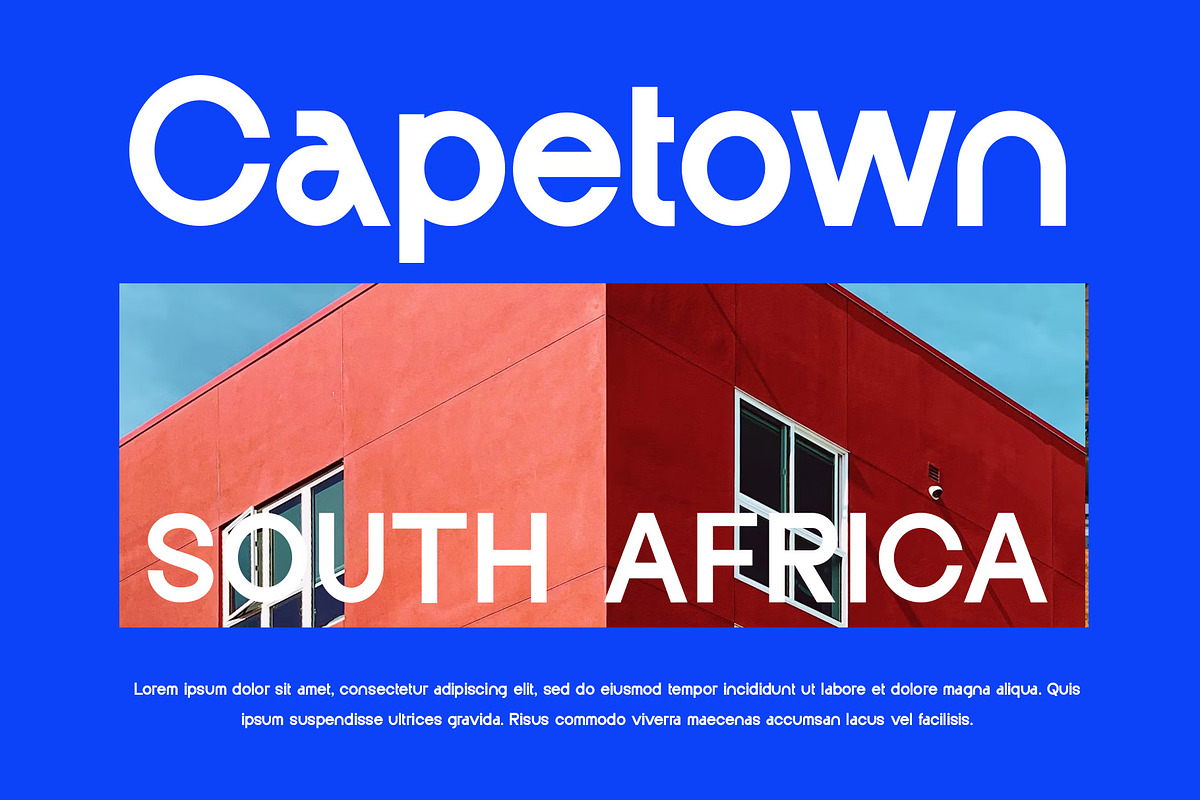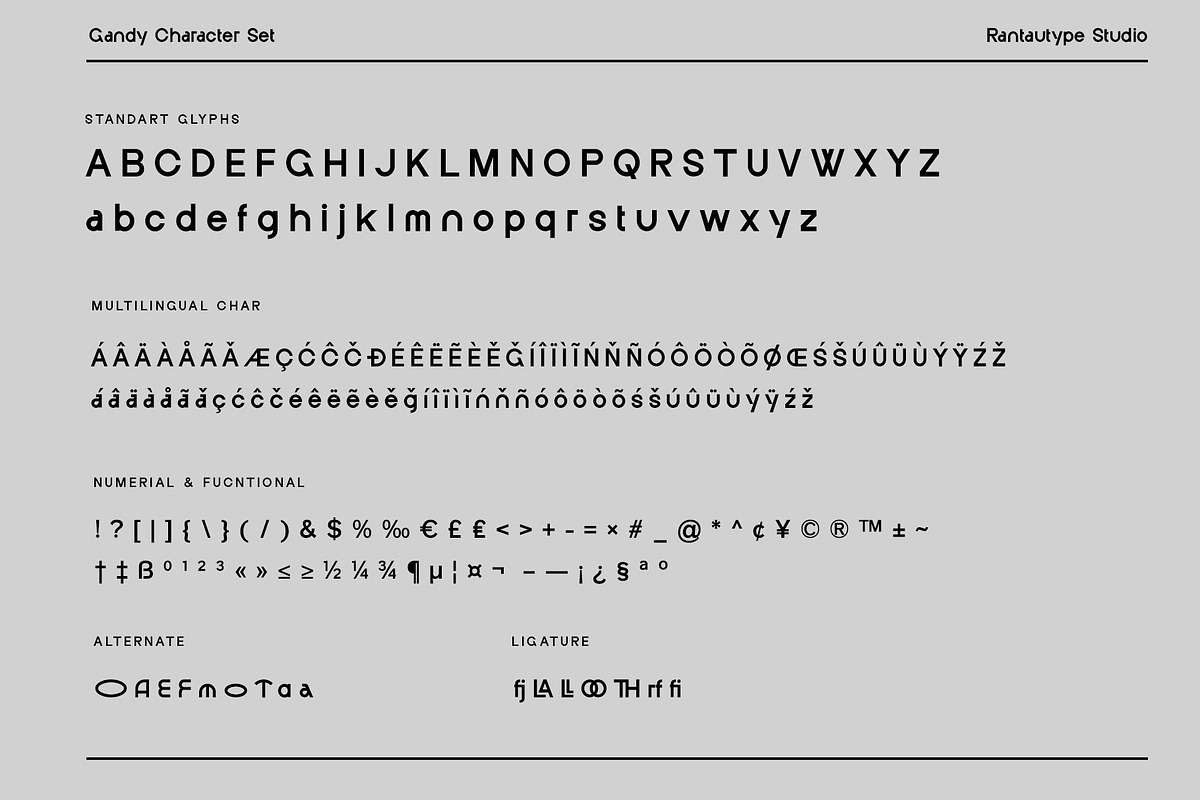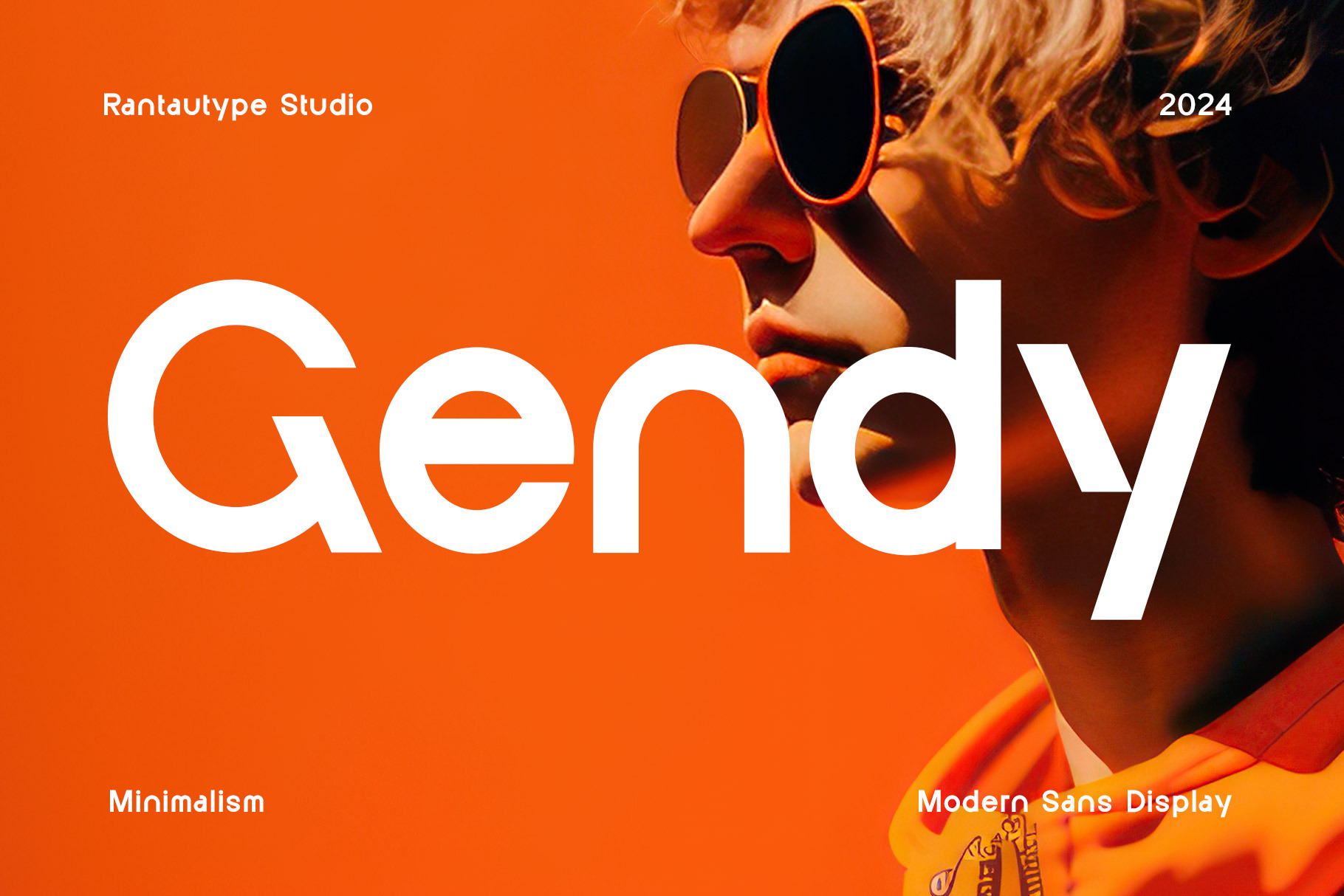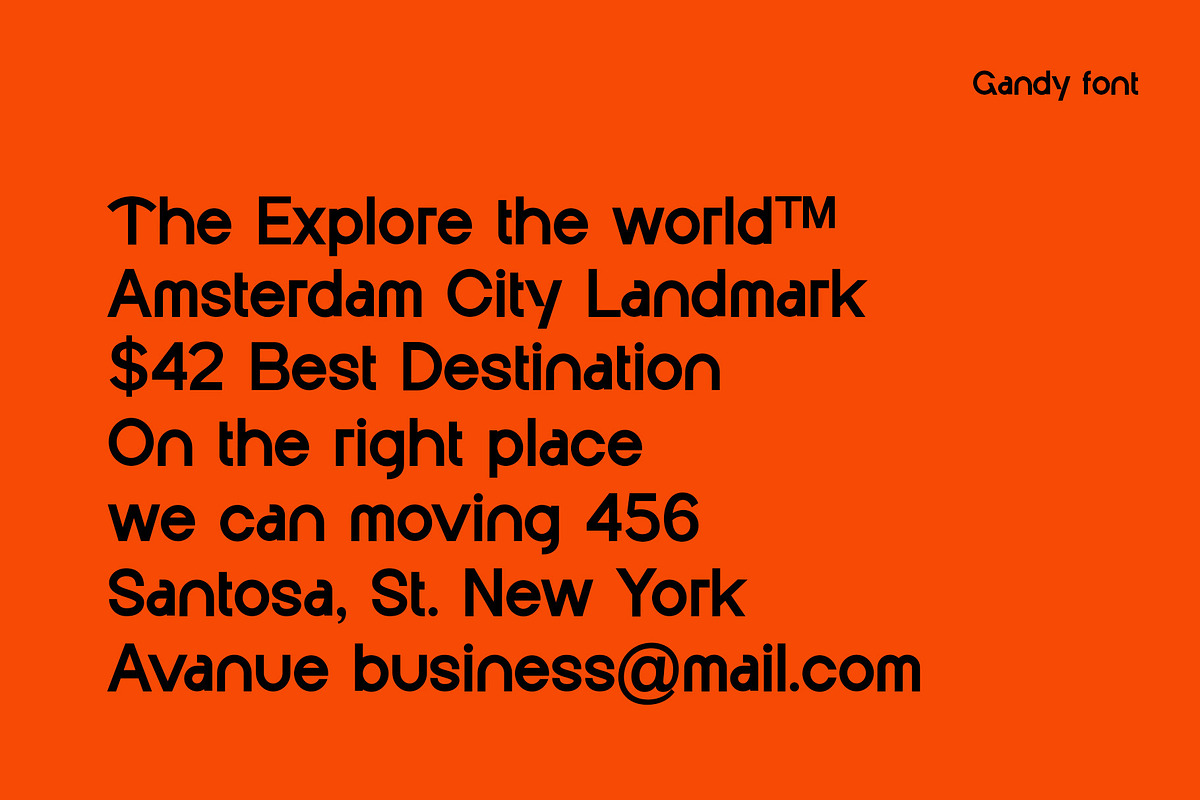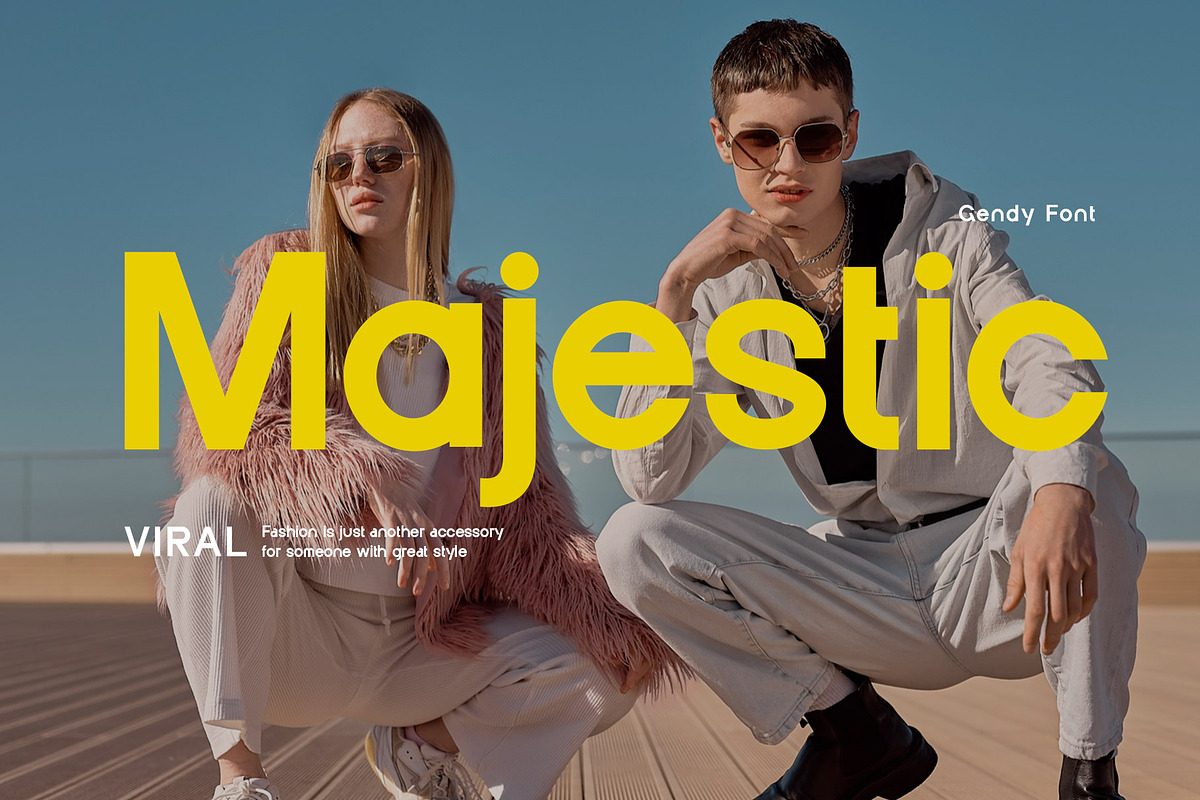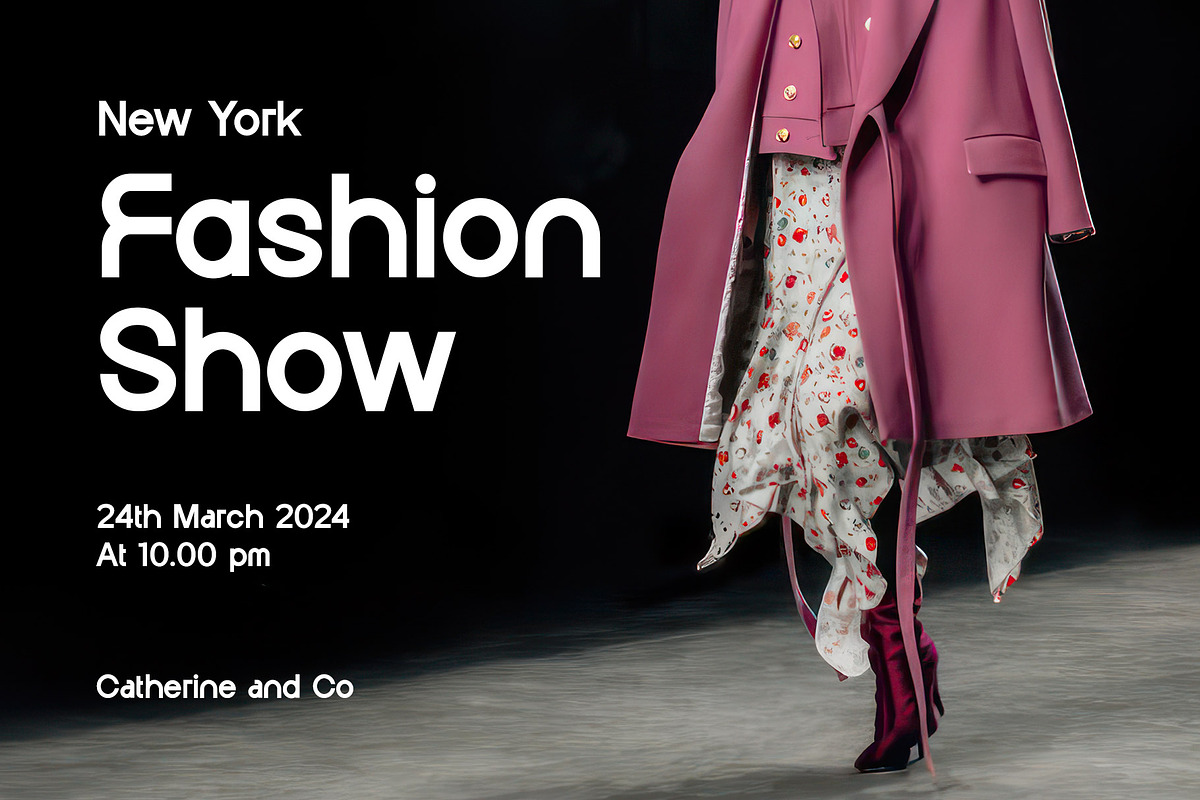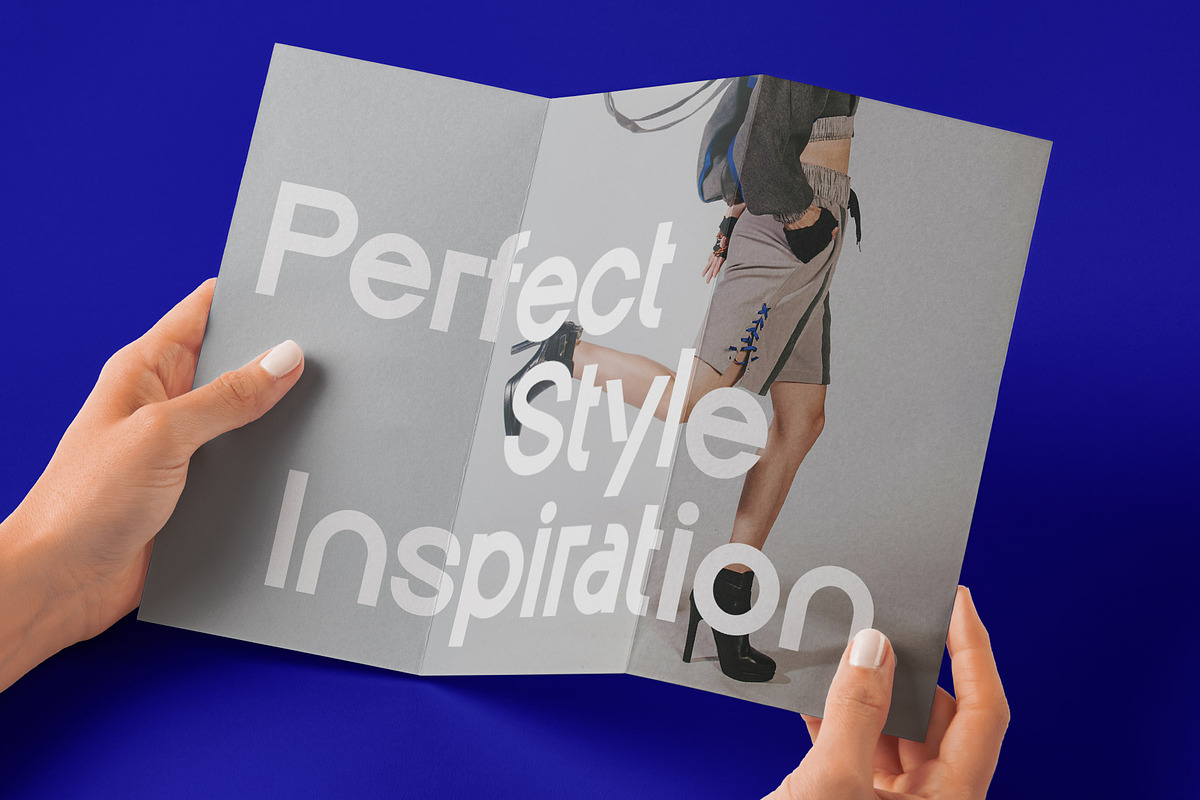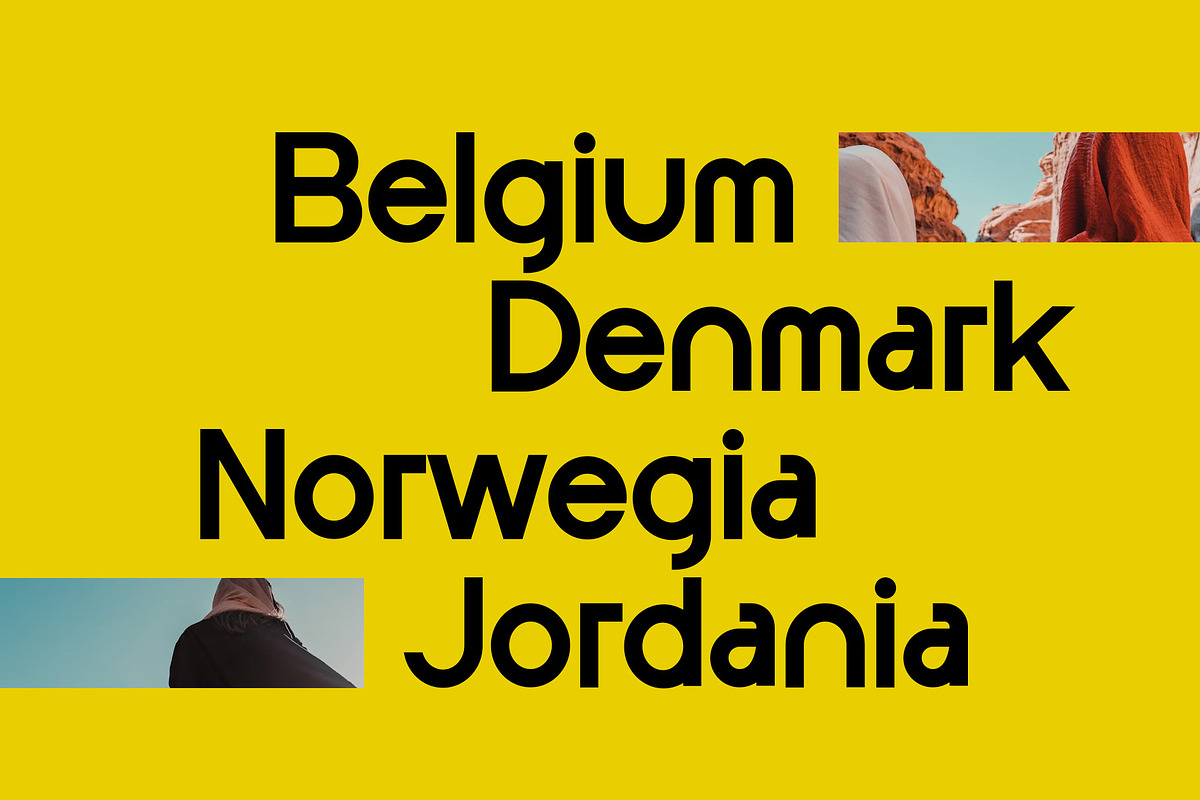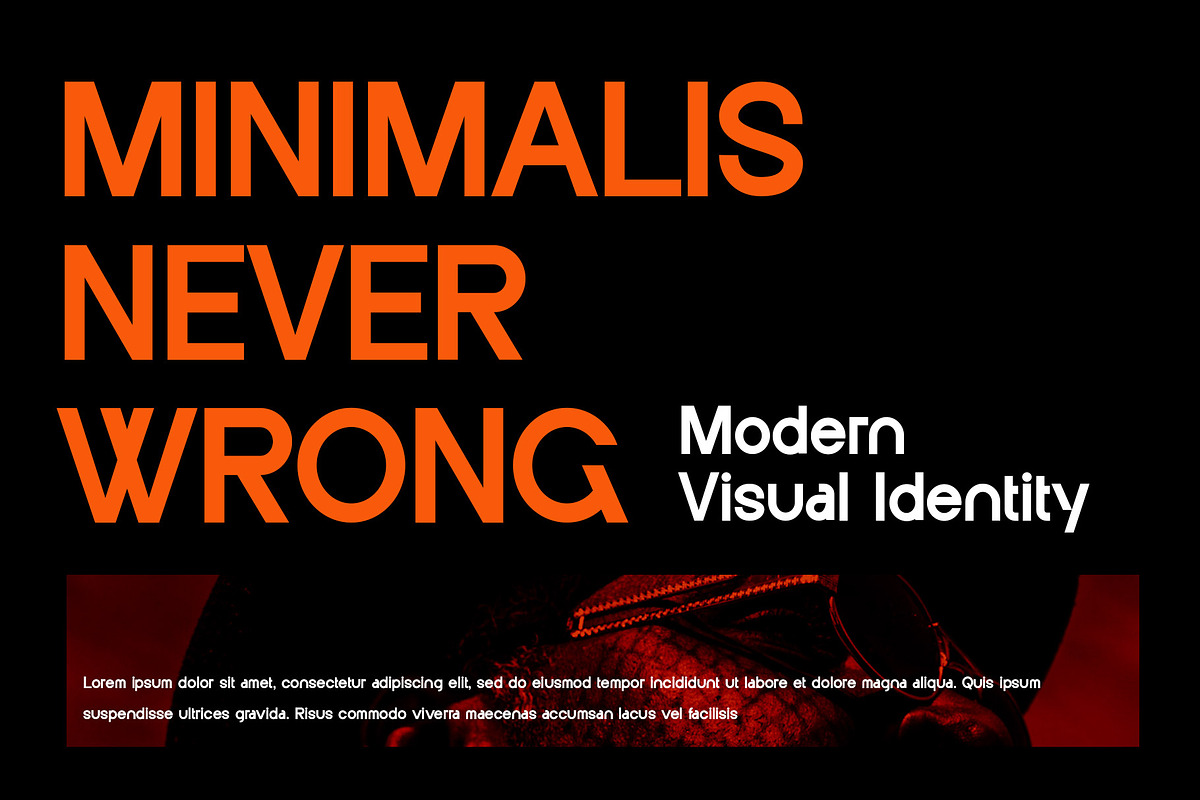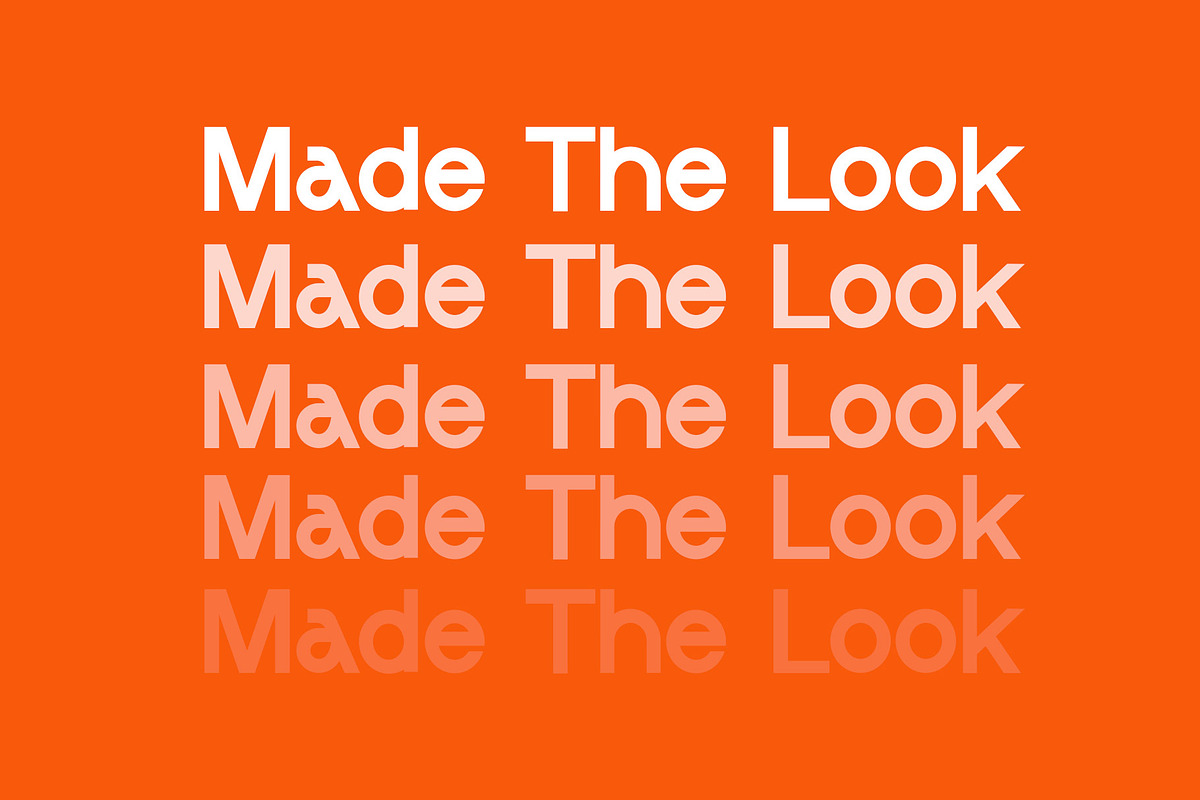
Gendy Modern Sans Font
Gendy is modern sans font insprire by modern grotesque with geometric details and deep in industrial design principles.
Gendy is a perfectly choice for any creative endeavor, chic, lifestyle design such as logos, advertisements, watermark on photography, stationery, branding project, display and magazine, invitation, corporate brand, product design, label, business project and many other project with elegant touch.
- Standart Glyphs
- Alternate and Ligature